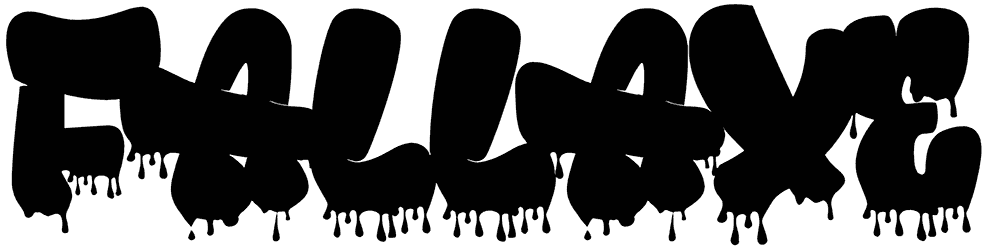
Fallaxe Drip Graffiti Font
As long as your urban and cool design is ready to capture a lot of attention, using a graffiti font can make it more impressive. Fallaxe Drip Graffiti font, with its bold and dripping characters, is one of your choices, but it doesn’t have lowercase letters. Use this fancy font for your next masterpiece and reveal your amazing artistic talent.